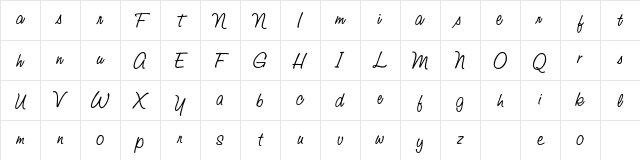
StudioScriptEF Alternative
Style: Alternative
StudioScriptEF Alternative
Complete StudioScriptEF Alternative glyph index. Displaying only characters natively supported by StudioScriptEF Alternative font.
Design Context for StudioScriptEF
StudioScriptEF flows with the natural rhythm of handwritten lettering, making it ideal for designs that call for warmth and personal expression.